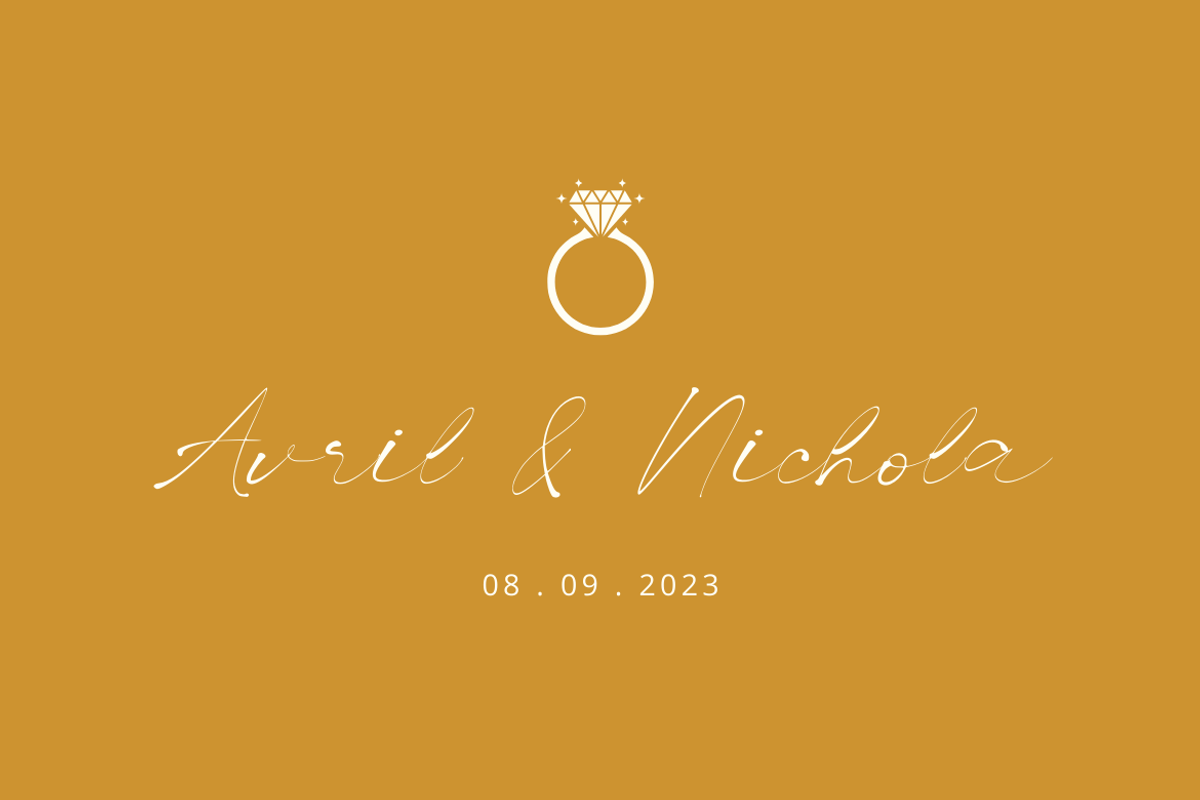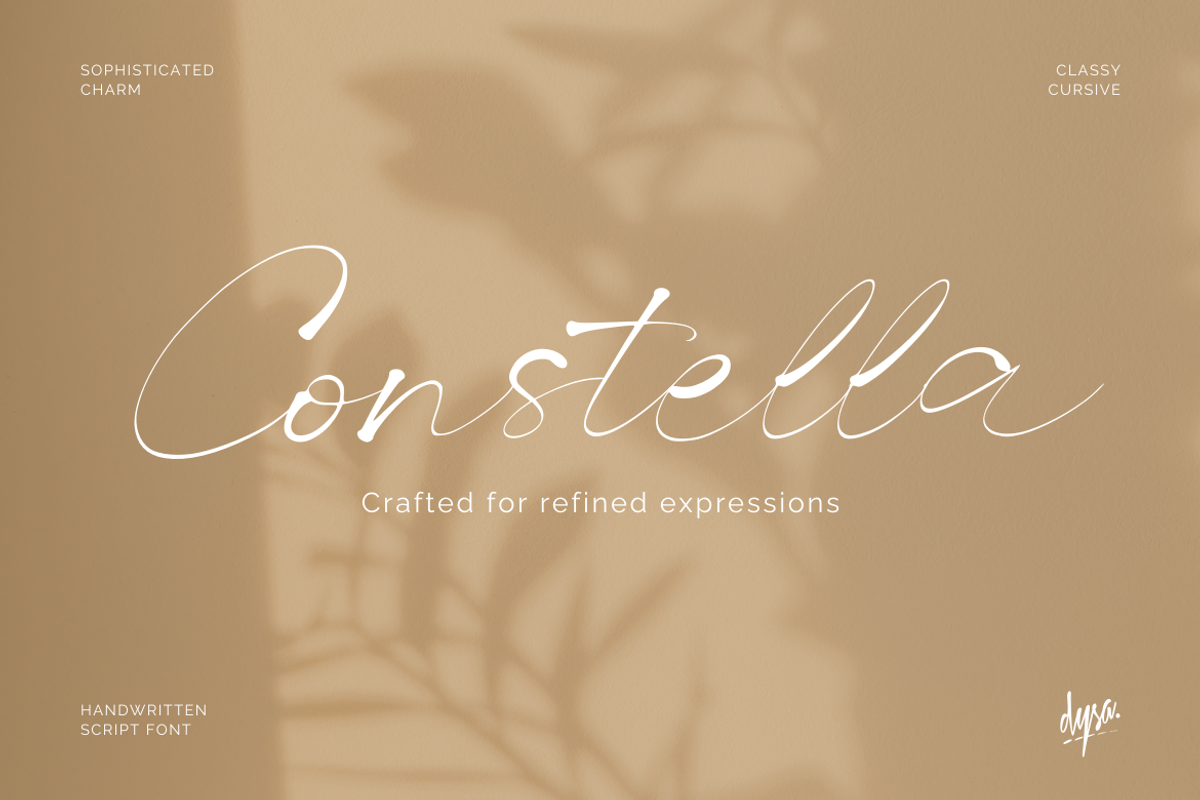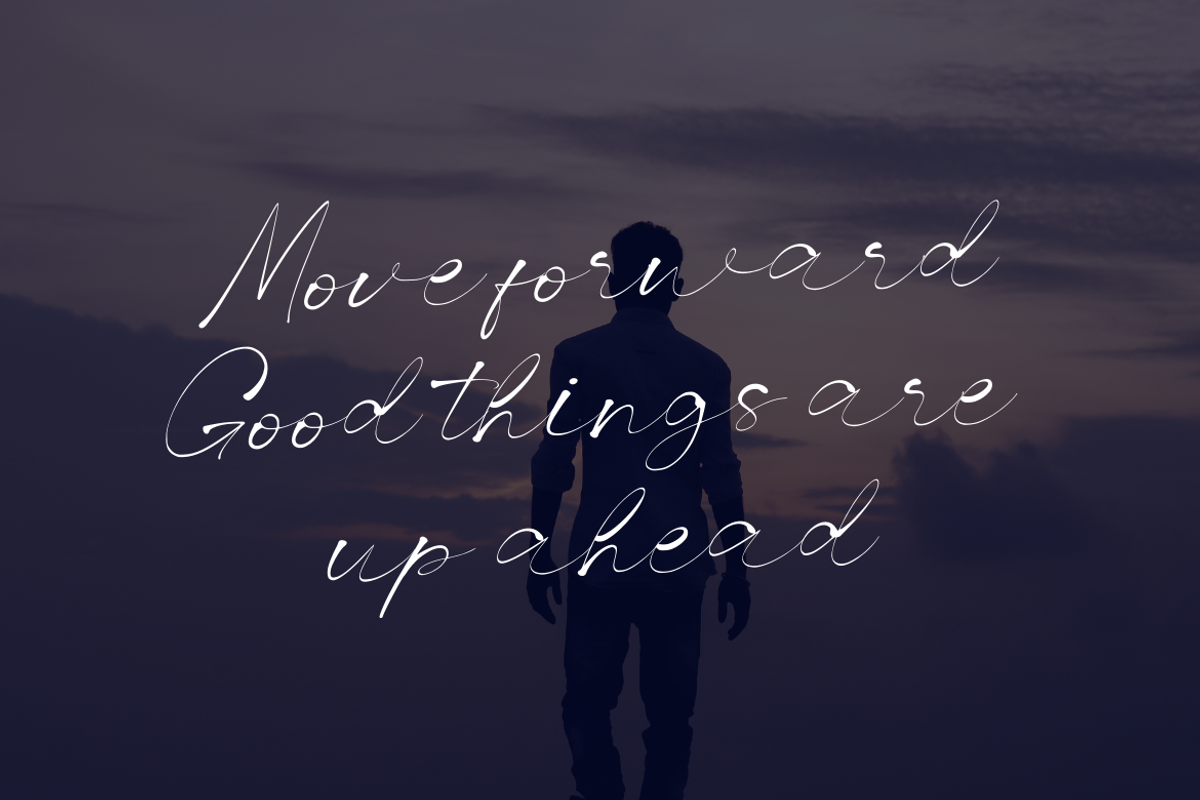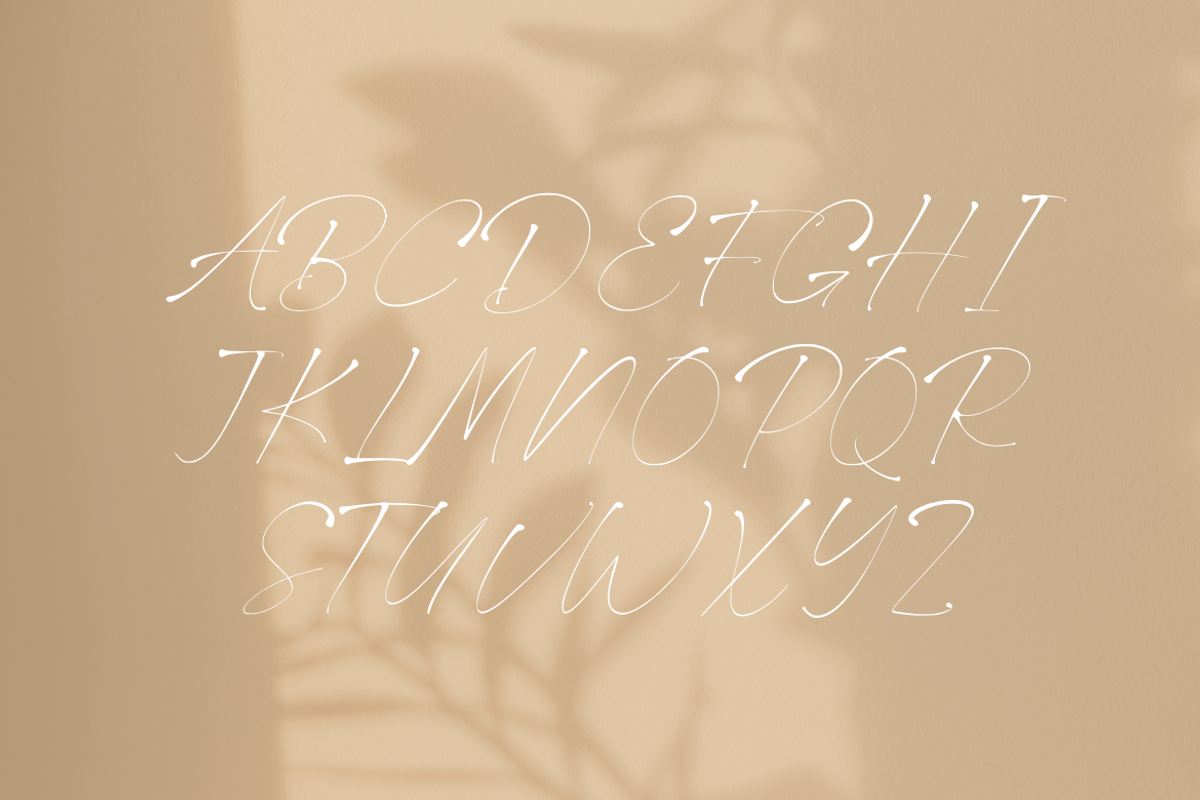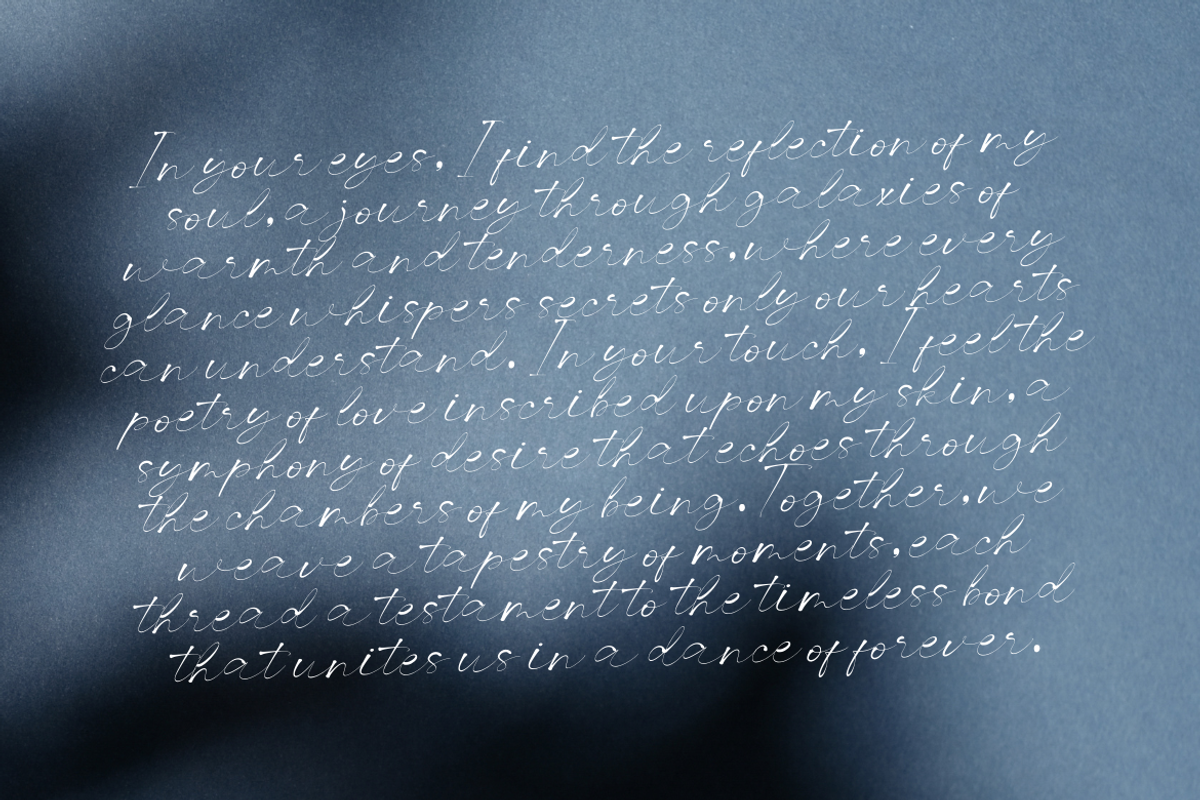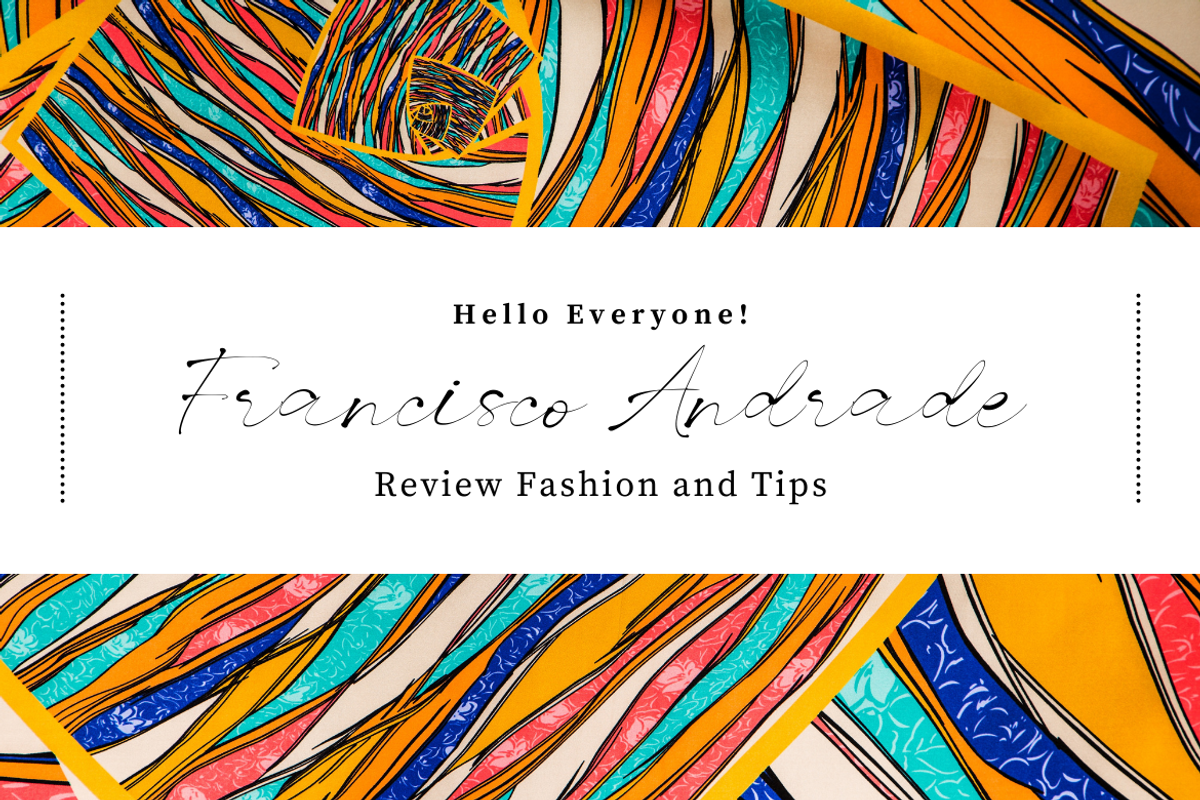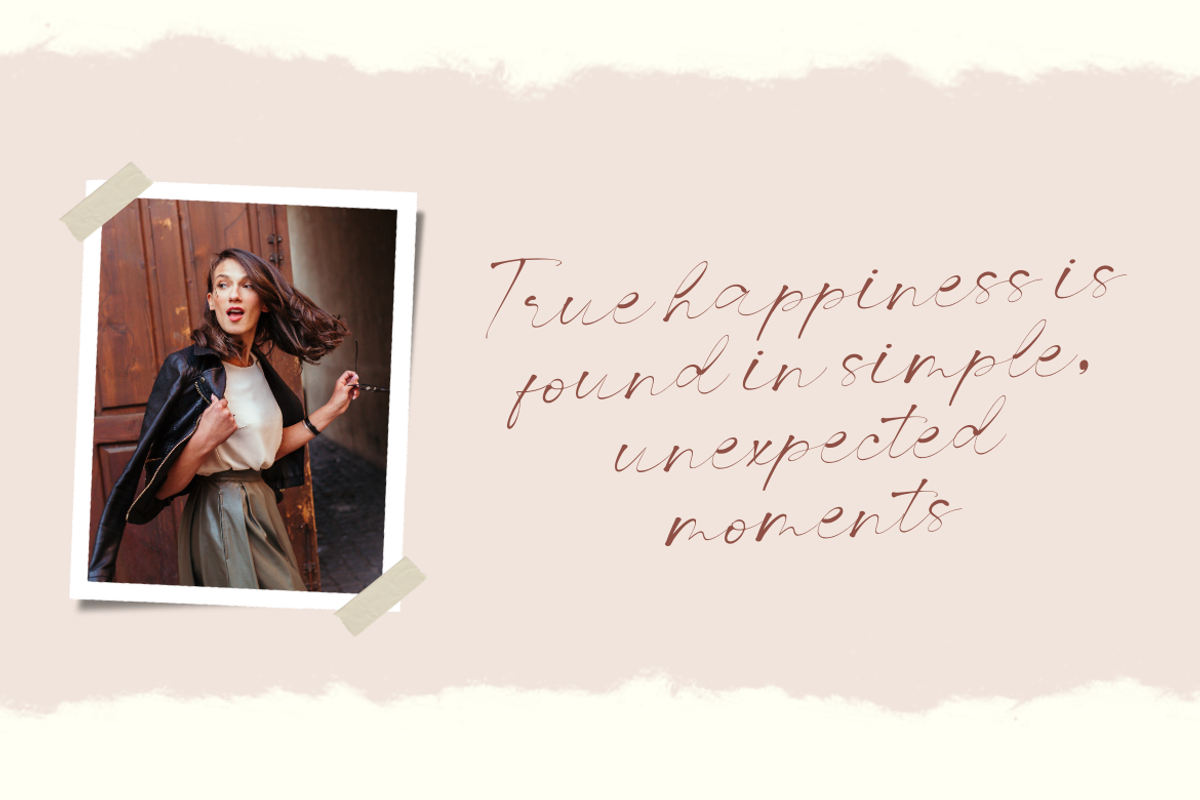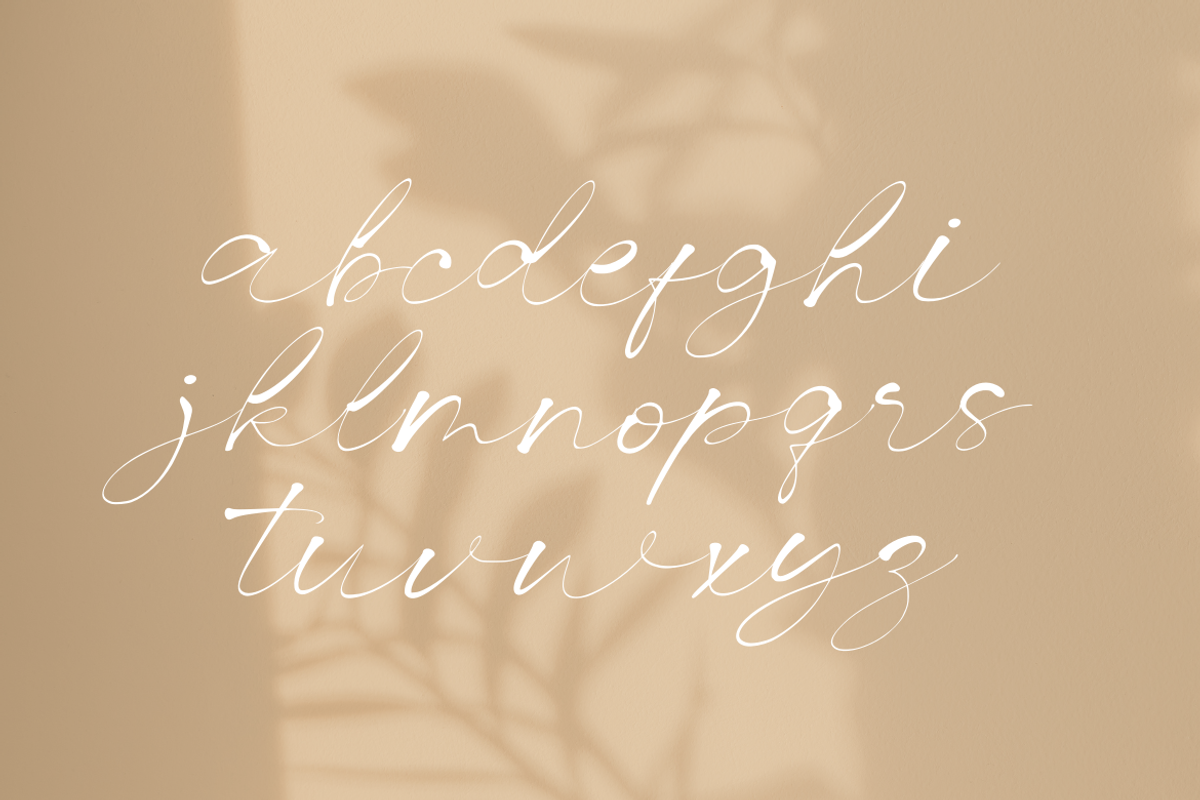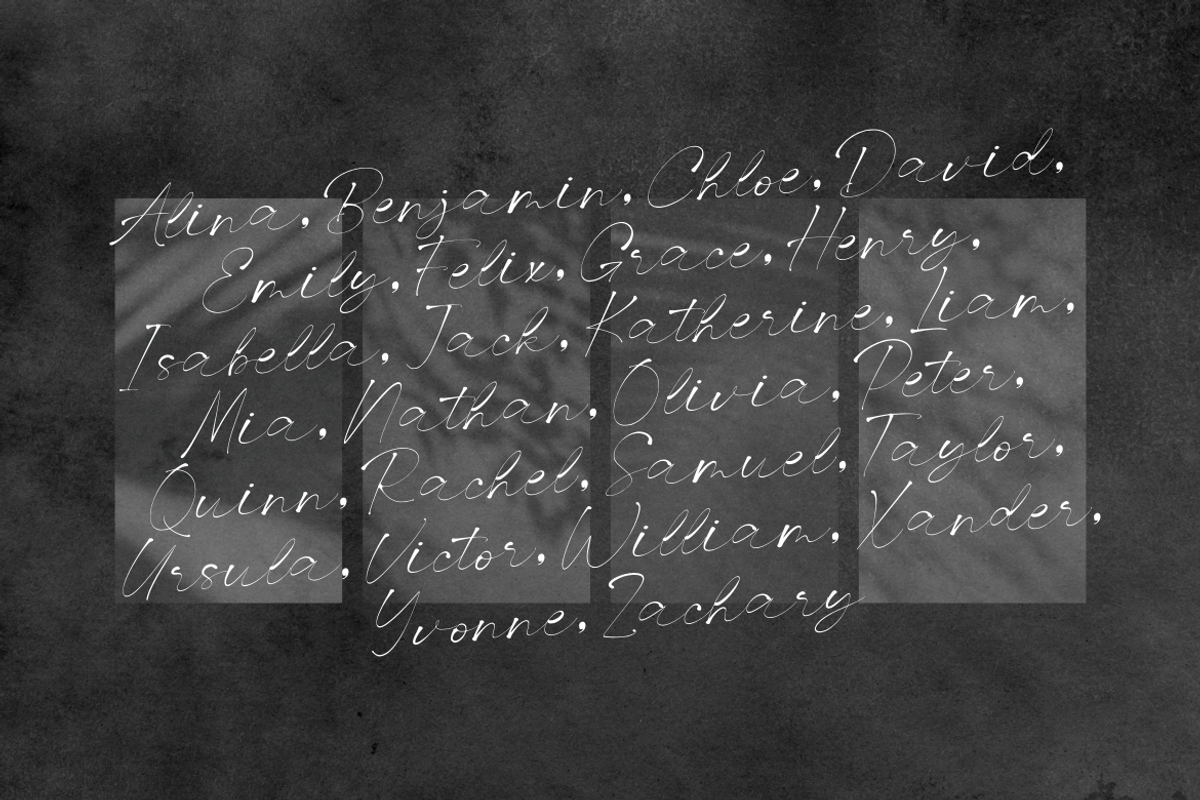
Constella
This font embodies elegant handwritten script, exuding grace and refinement. Inspired by the beauty of handwriting, each letter flows smoothly, inviting exploration. Ideal for projects seeking a personal touch and timeless elegance.